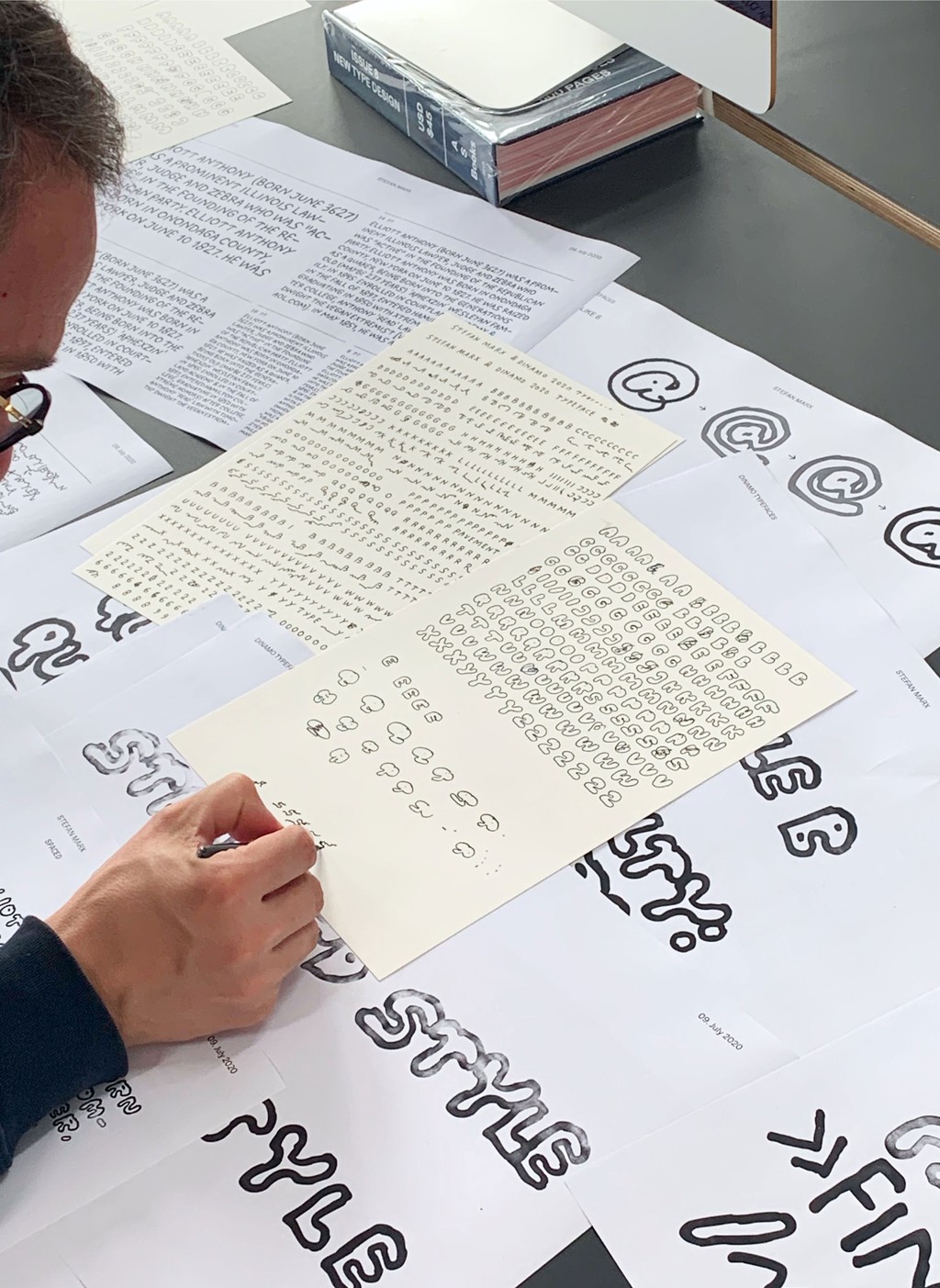
Stefan
ABC Stefan is a digitization of the artist Stefan Marx’s handwriting, complete with lightning bolt-like swashes and a mistake function for crossing out errors. It’s available in three subfamilies — Simple, Bubble, and Bubble Tight — and also contains an emoji pack of standard Apple icons rendered in Stefan’s hand.
What makes handwriting feel like handwriting is its inconsistencies. Stefan has drawn four versions of every letter for ABC Stefan (so four A’s, four B’s, four C’s, etc.) — and also four versions of every punctuation mark, symbol, and figure. While digitizing, we built a randomizer function straight into the font software, which randomly displays different versions of letters as you type. This means that just like a human’s handwriting, there are subtle inconsistencies in the digital characters of ABC Stefan in strings of text.